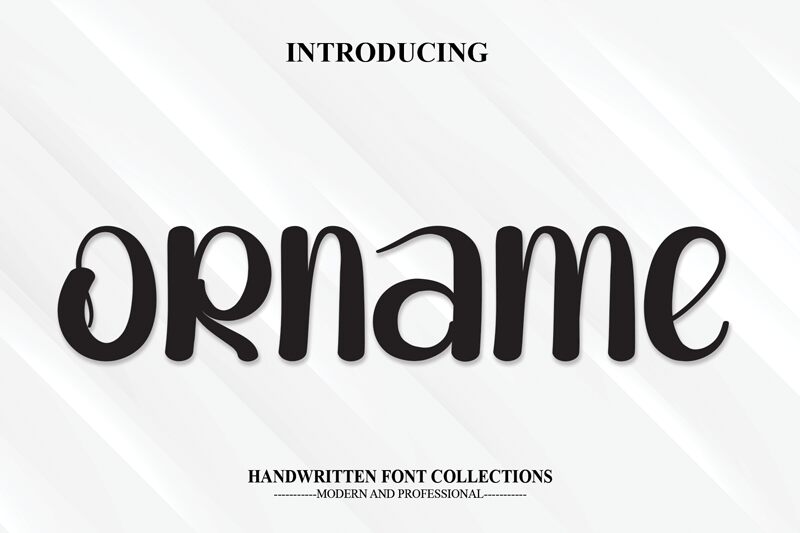
Orname
Orname is a captivating font that exudes a smooth, brush-like elegance. Designed by Andi Moz, this typeface seamlessly blends the organic fluidity of handwriting with the precision and consistency of digital typography.
Its strokes convey a sense of movement and energy, lending a distinct personality to any design. The font's versatility shines through, making it suitable for a wide range of applications, from sophisticated editorial layouts to expressive branding and impactful signage.
Orname's unique character and visual appeal make it a valuable asset for designers seeking to evoke a refined, artisanal aesthetic in their work.